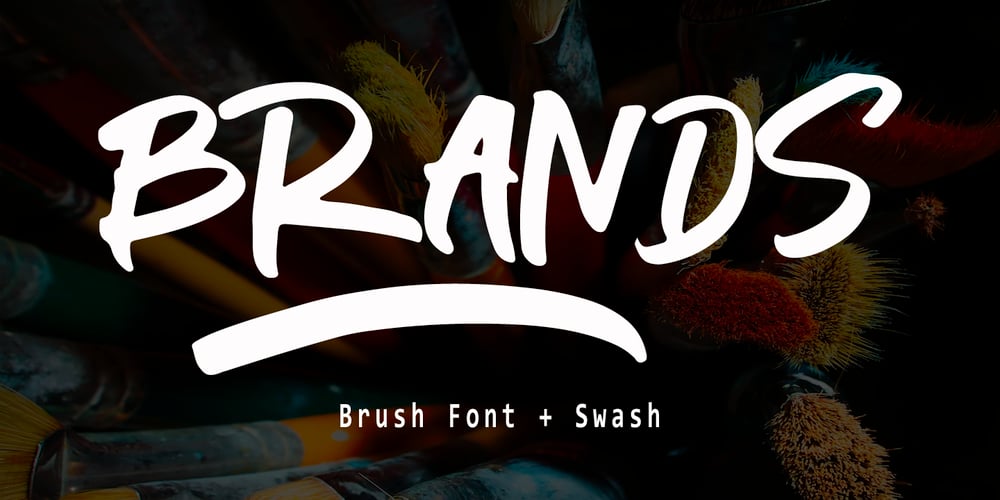
Brands
Brands Font Family was designed by Rizal Aiyub and published by Fontysia. Brands contains 2 styles and family package options. Branding handwriting brush typeface that is suitable for design projects ; logo, branding, poster, quotes, and any other designs. Branding is unique, so natural and catchy.Features: All Uppercase Numeral Punctuation Symbol Multilingual Support PUA Encoded Characters – Fully accessible without additional design software. Thank you